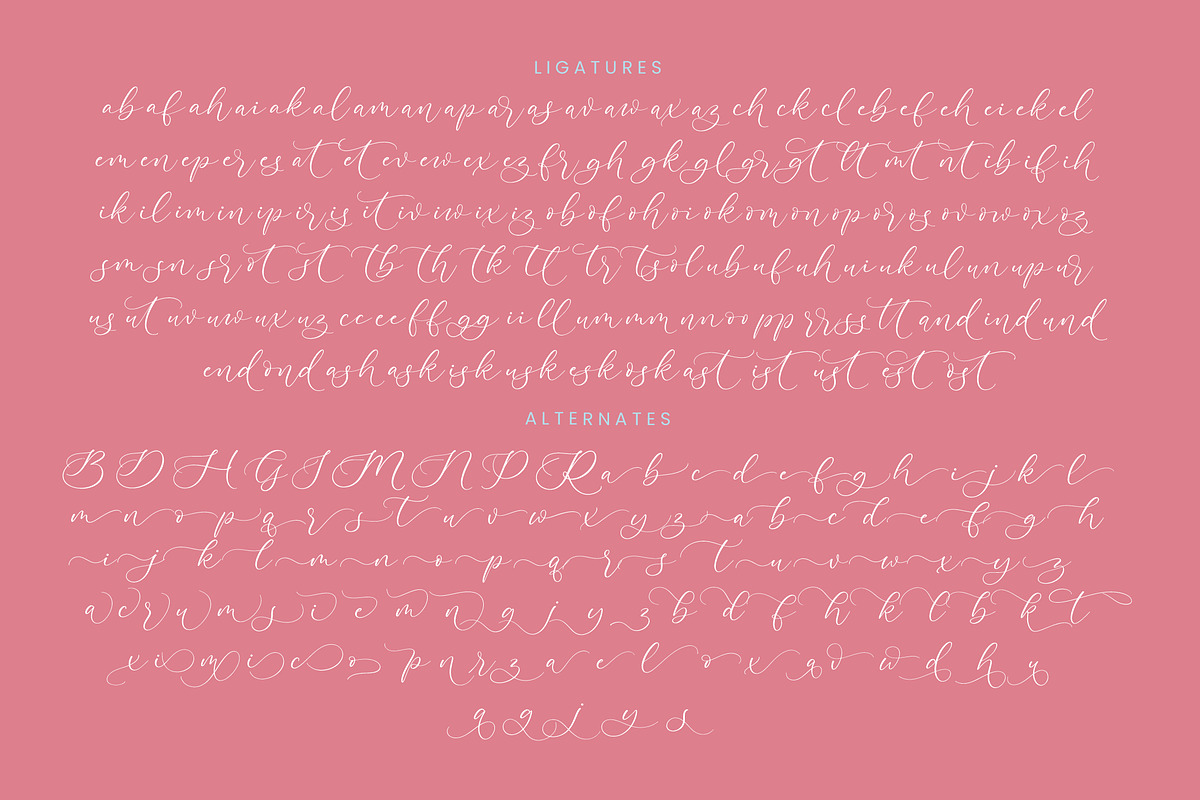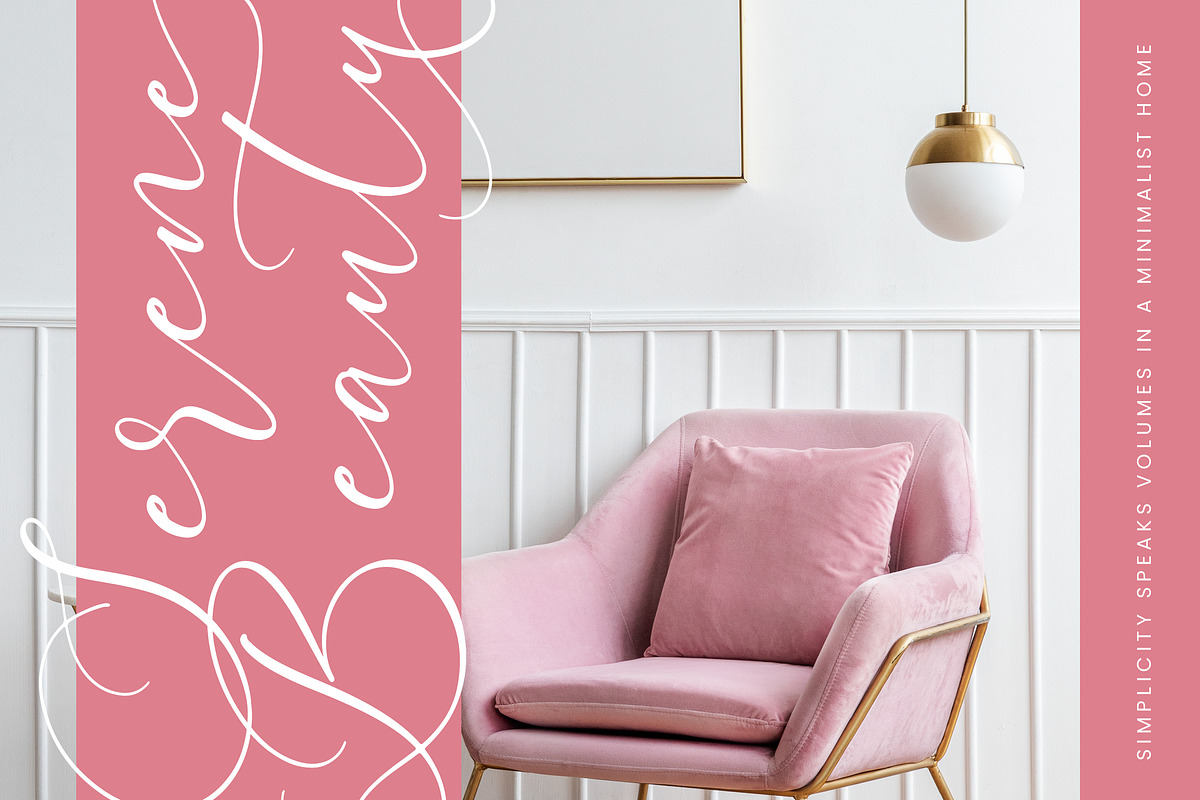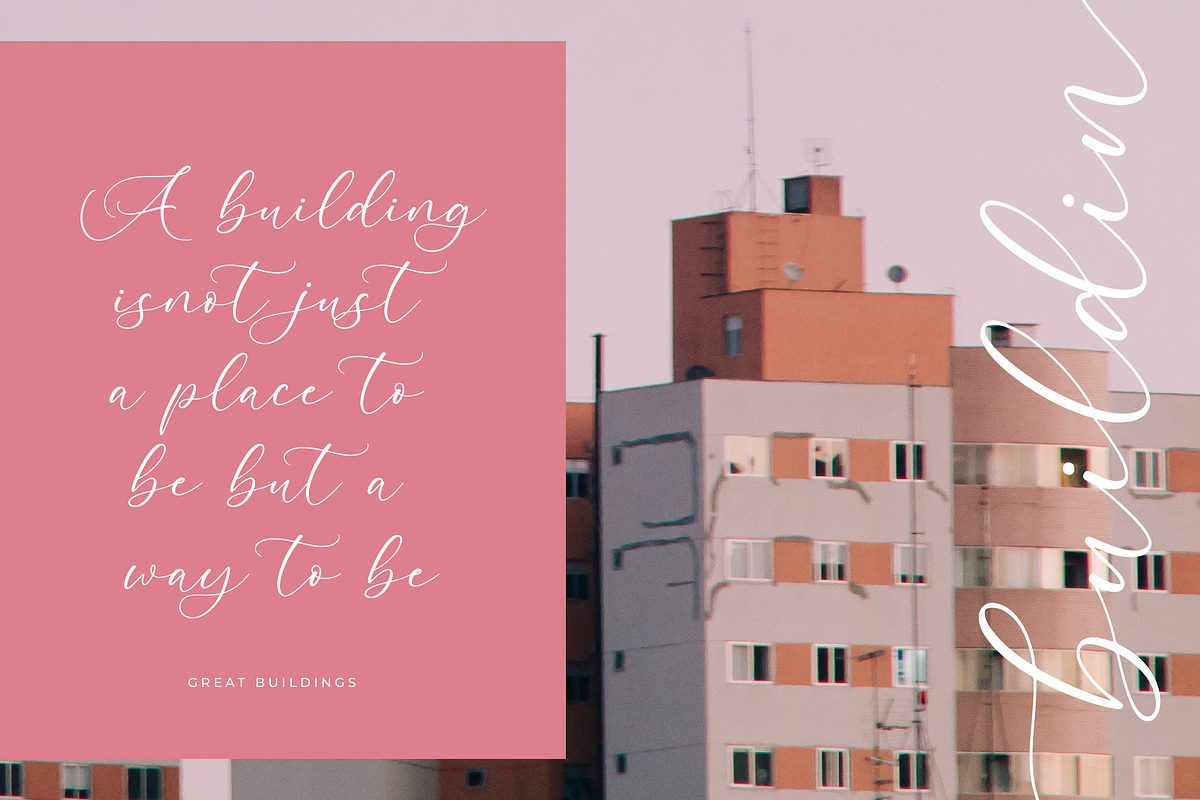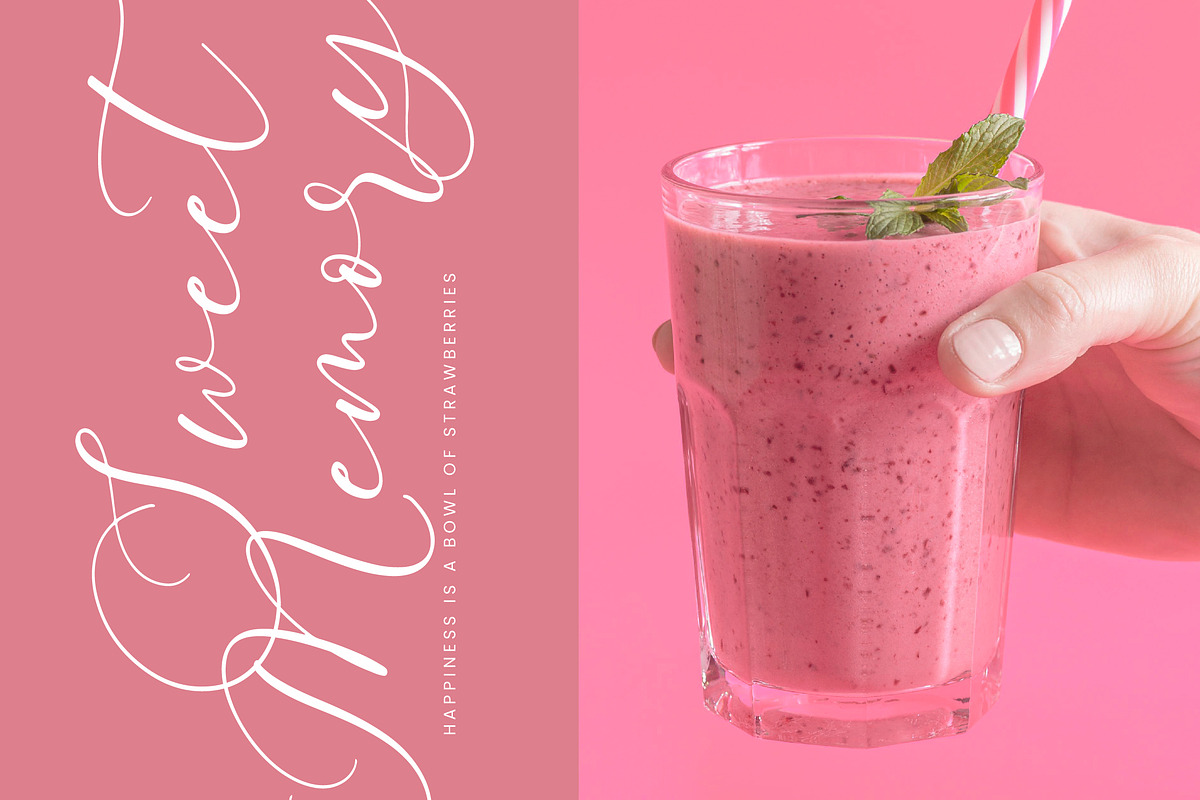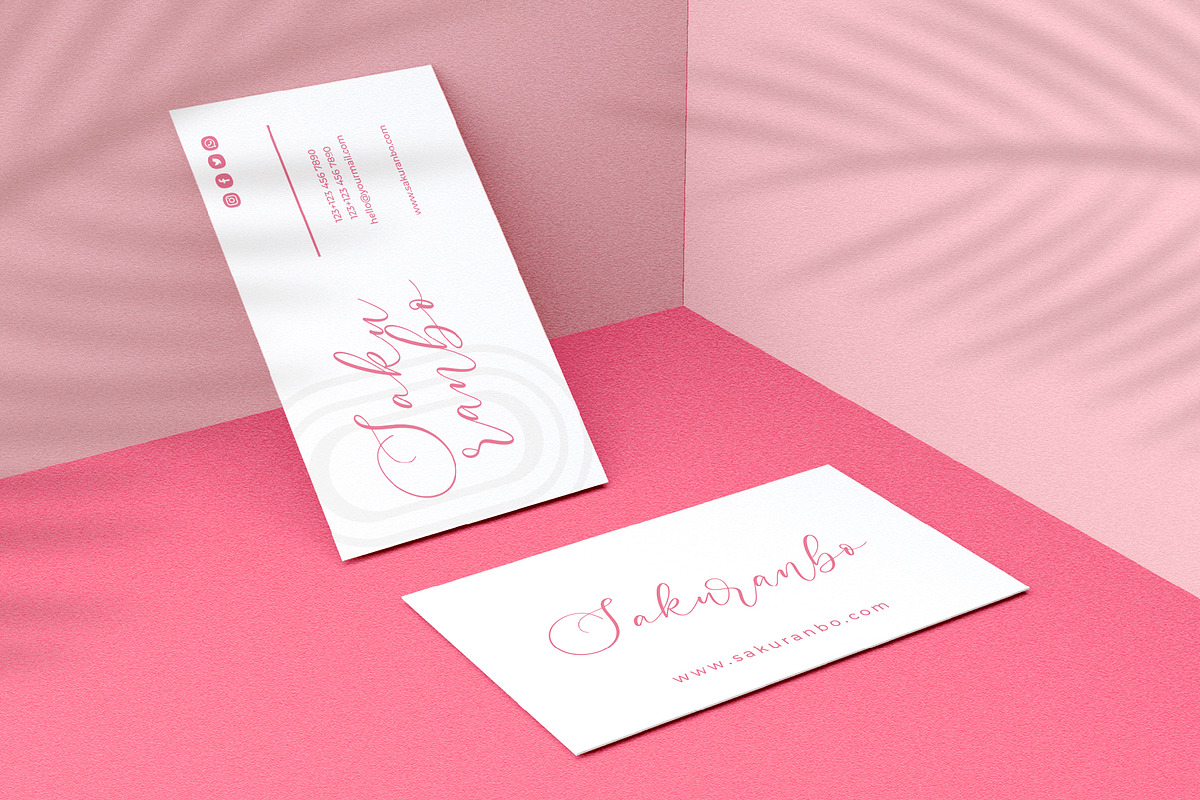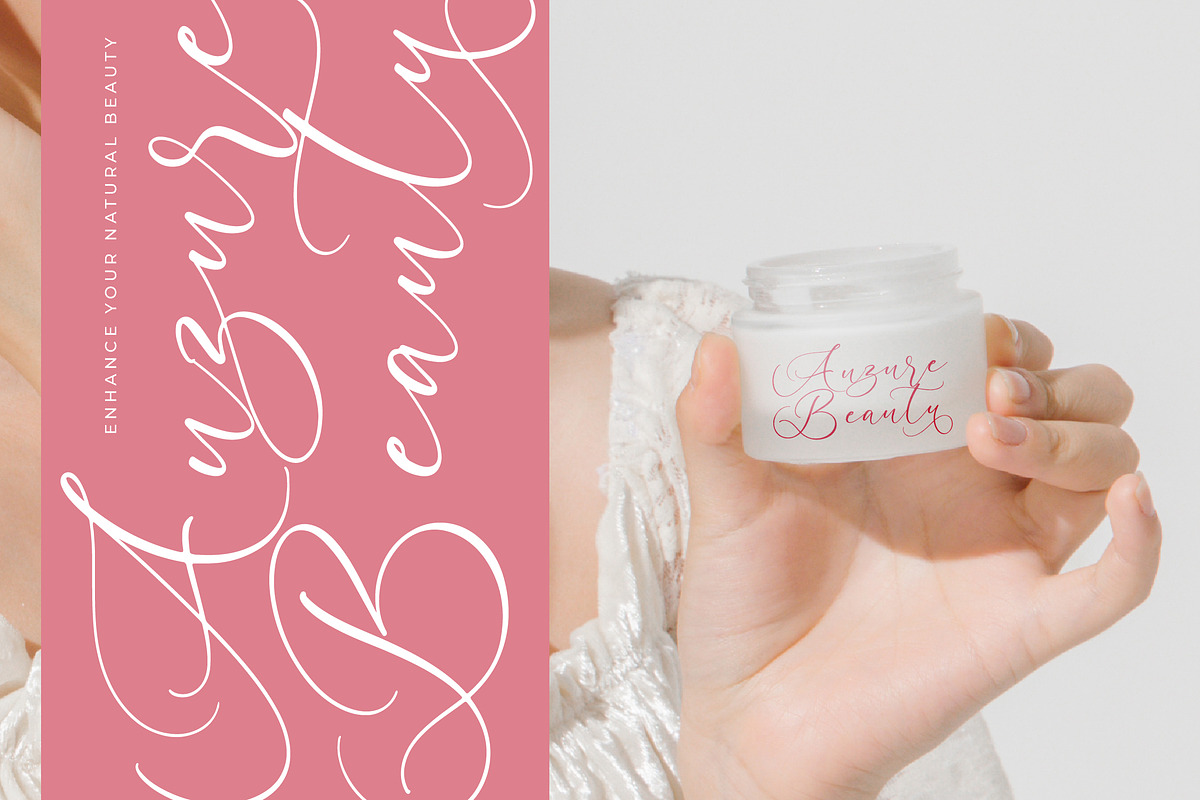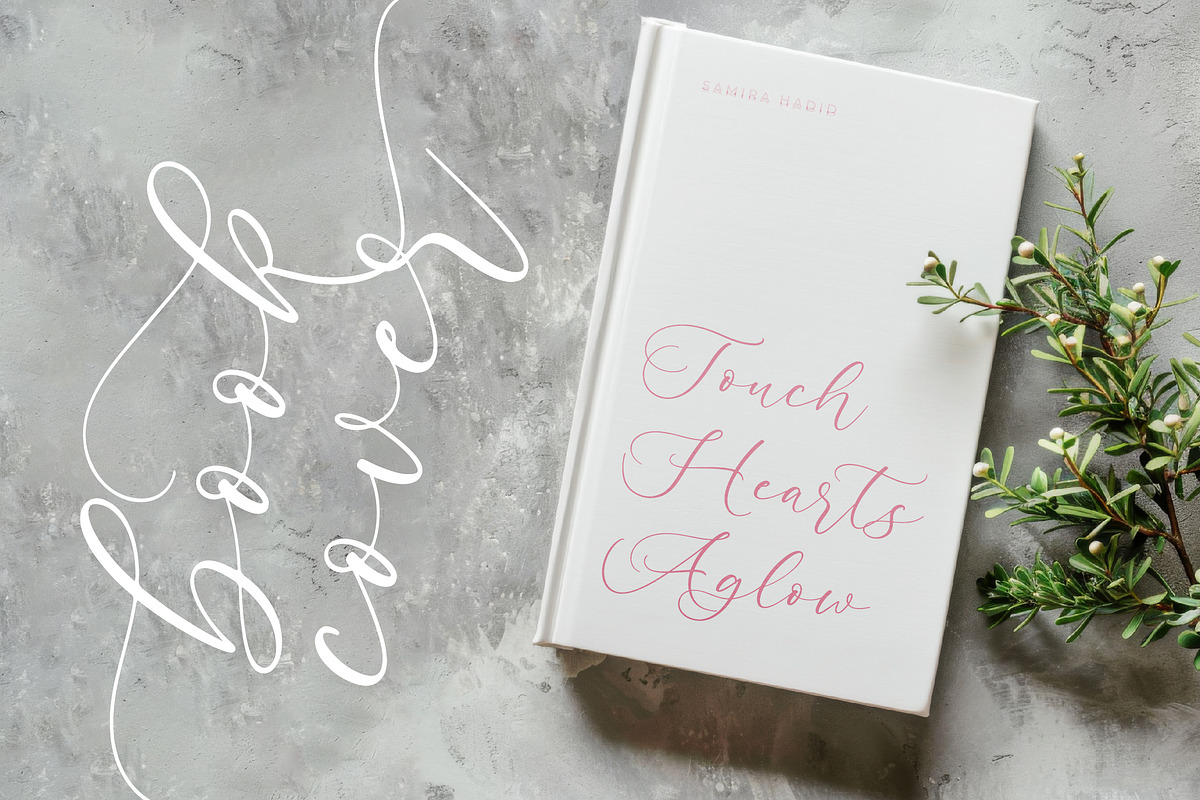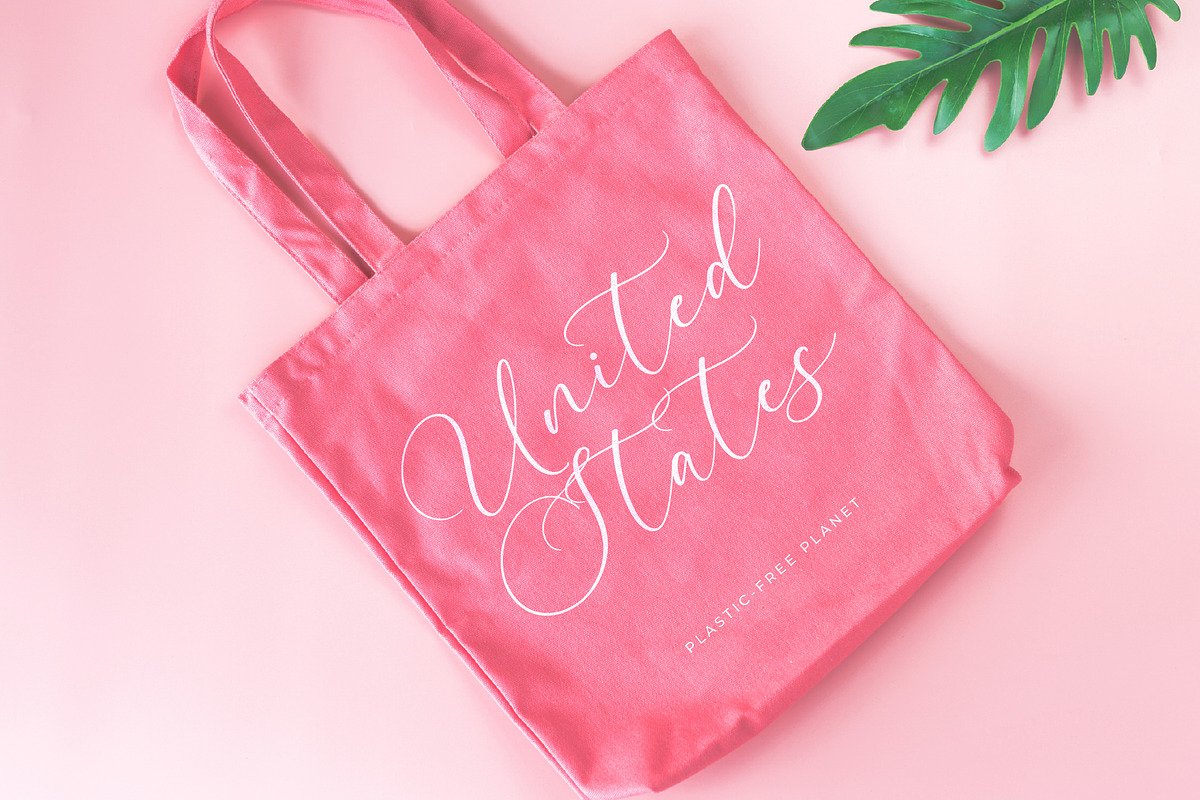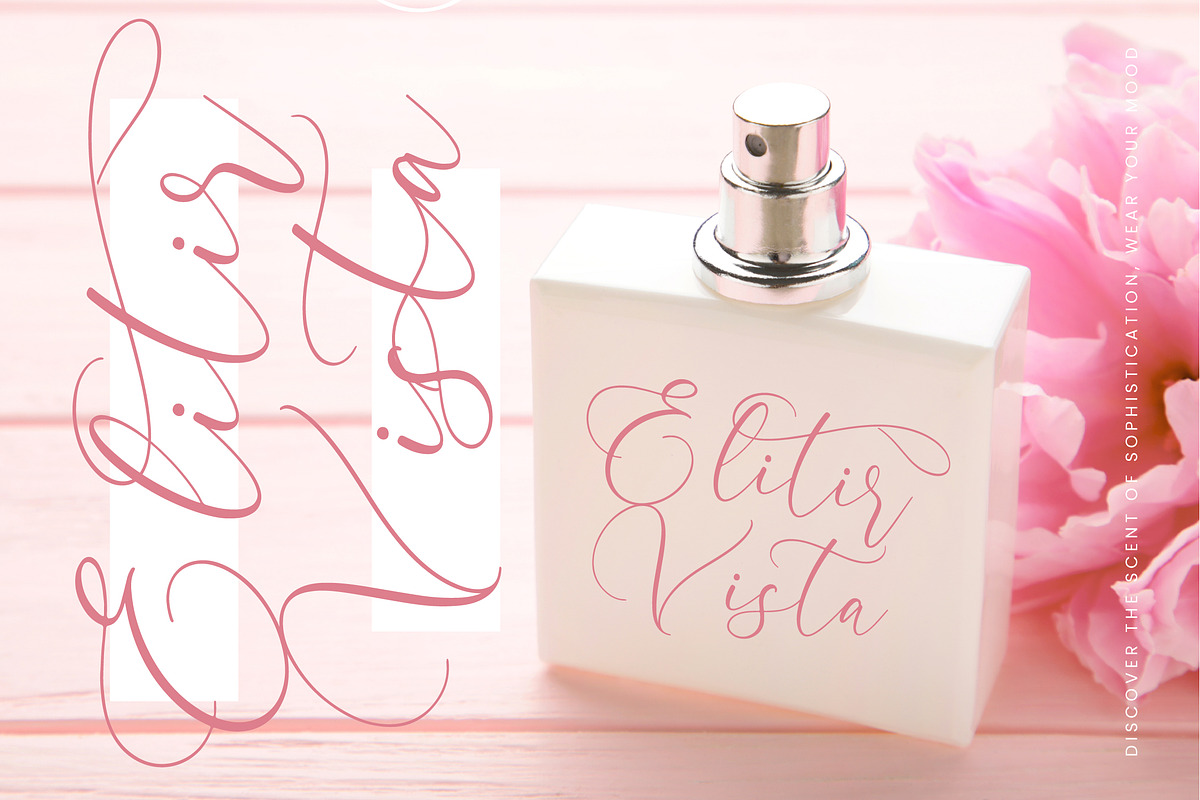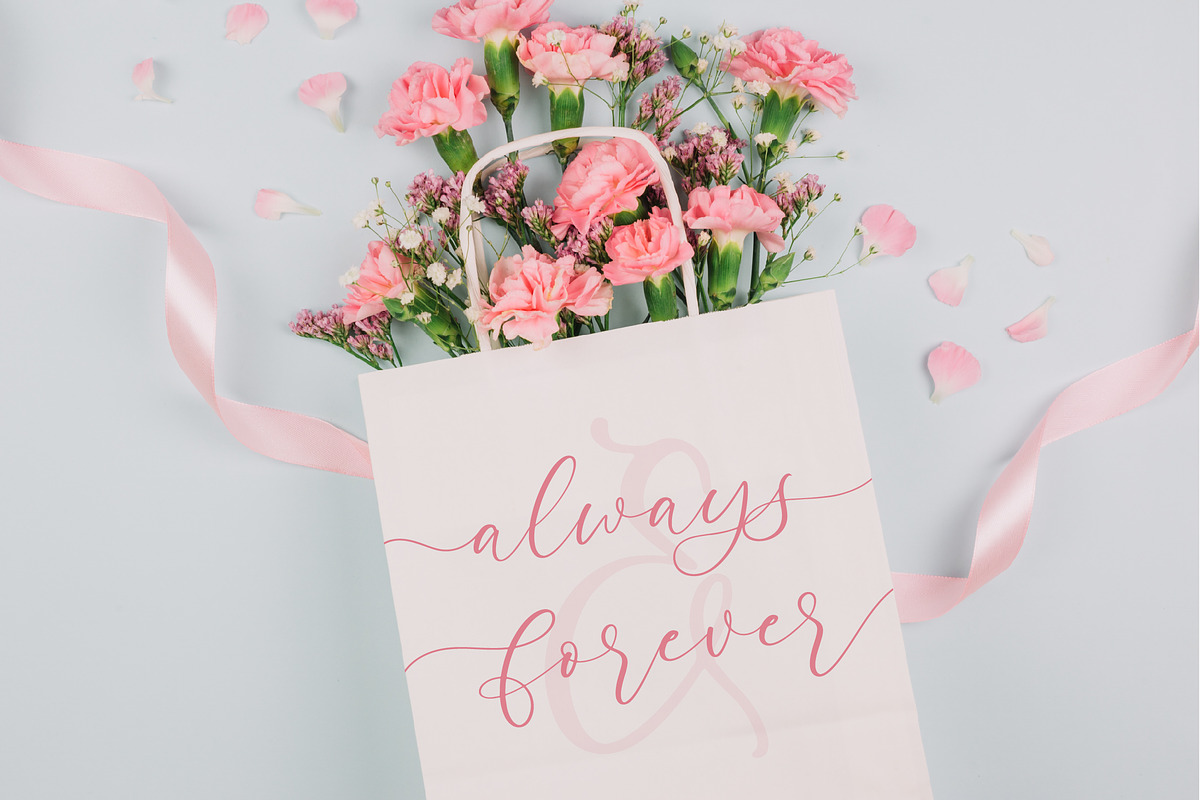
Pertysh Tulipita Stylish Calligraphy
Pertysh Tulipita - Stylish Calligraphy , from Stylishtype.Co , Suitable for any projects such as: logos, branding projects, homeware designs, product packaging, mugs, quotes, posters, shopping bags, t-shirts, book covers, name card, invitation cards, greeting cards, label, photography, watermark, special events, and all your other luxury and beautiful projects that need a Luxury Script taste.
- 130 Ligature 110 Alternates & 9 Swashes